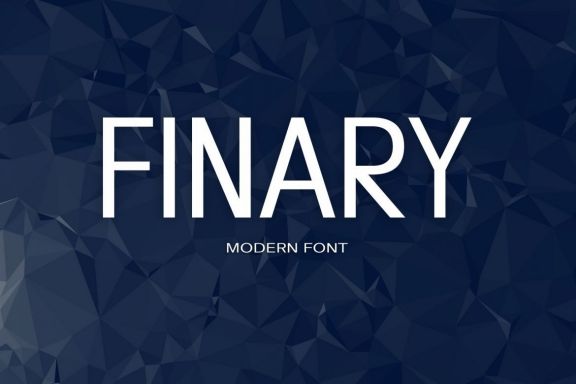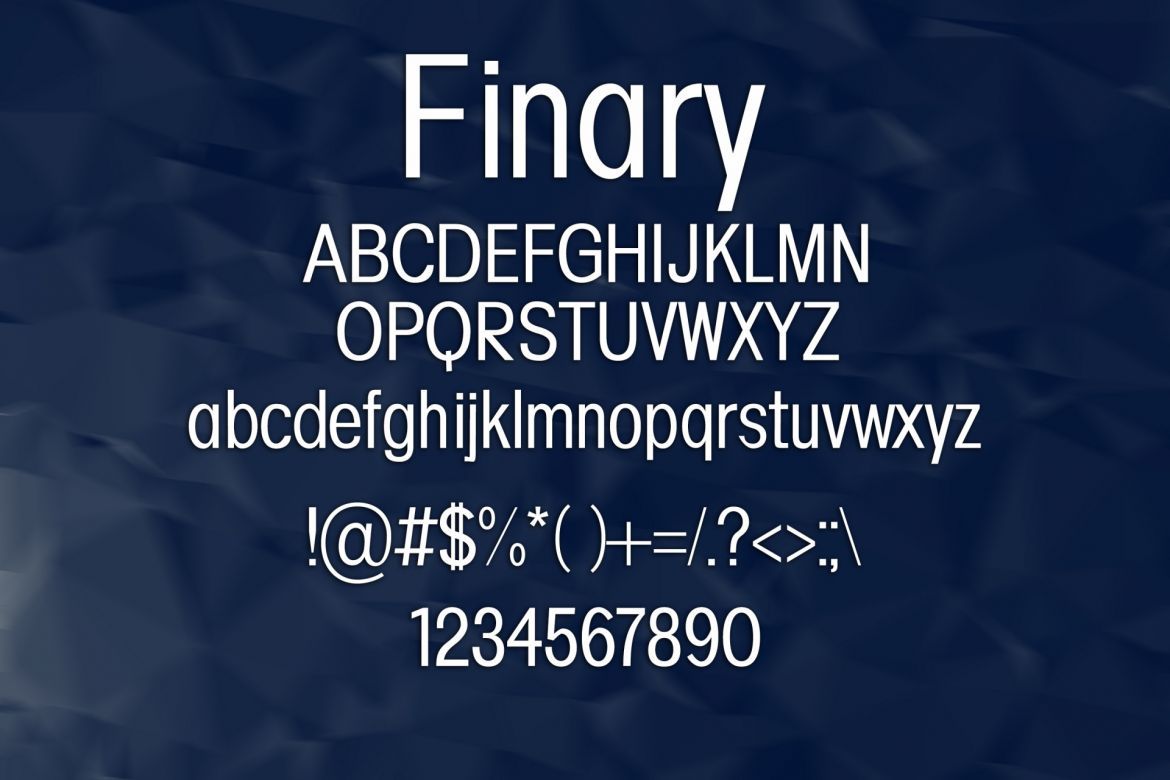
Finary Font
• this is a sans serif font was inspired by traditional sign painting with a modern twist. super clean and minimal and perfect for modern design. the filled and outlined versions pair well next to each other and it also pairs well with script fonts. this font works great for branding, logos, headlines, business cards, t-shirts...you name it! it's perfect for you to give your design an elegant modern style. the font came with web font licenses & unlimited page views!